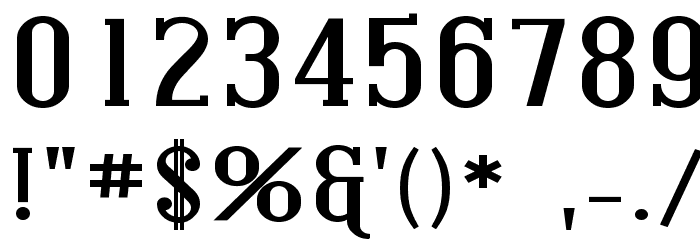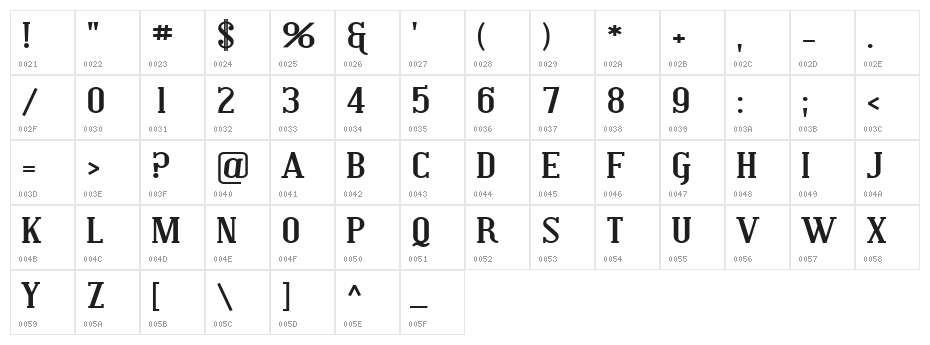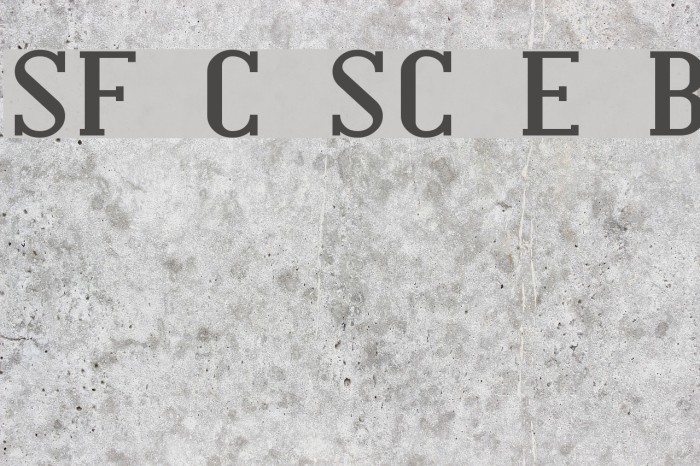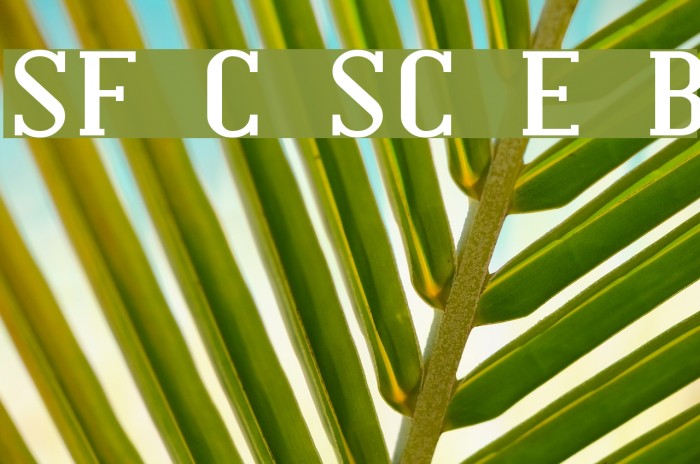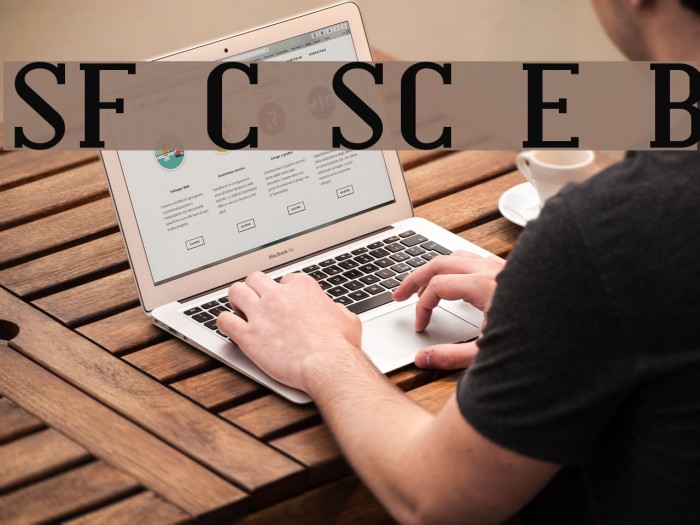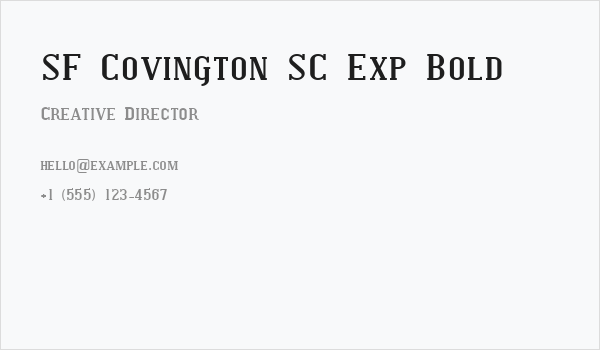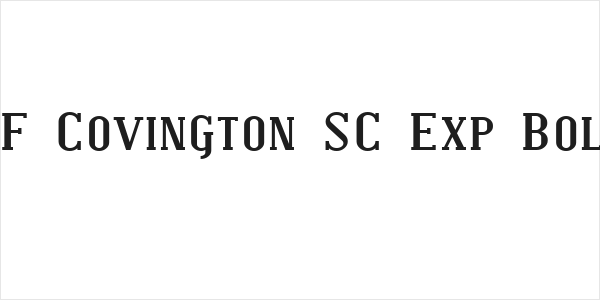
SF Covington SC Exp Bold Font
SF Covington SC Exp Bold Description
This font features a bold and commanding presence with its strong, thick strokes and slightly condensed letterforms. The serifs are pronounced, adding a touch of elegance and tradition to the overall design. The uppercase letters are particularly striking, with a uniform height that enhances readability and impact. The numerals are clear and distinct, making them suitable for both display and informational purposes. Special characters are well-integrated, maintaining the font's cohesive style. This typeface is ideal for projects that require a blend of classic and modern aesthetics.
| Proposed Projects | Ideal for headlines, posters, branding, and editorial design where a strong, classic presence is desired. |